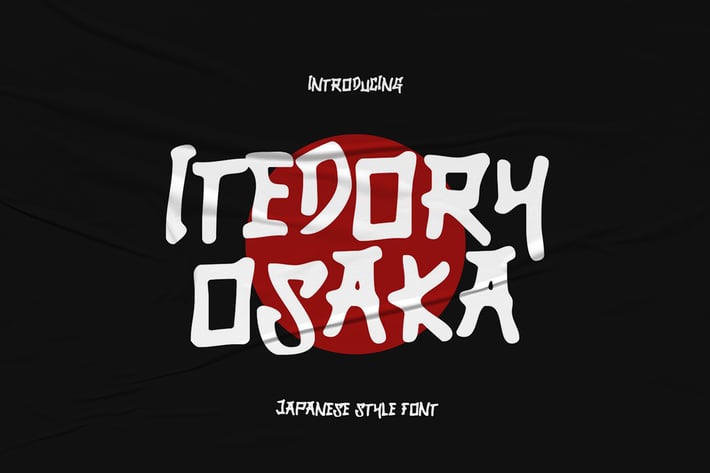
Itedory Osaka - Japanese Style Font
Itedory Osaka is a Japanese-style font inspired by the culture and architecture of Osaka. This font has a distinctively elegant letterform, with a traditional Japanese touch. Itedory Osaka is suitable for a variety of purposes, from graphic design, logos, to product packaging.